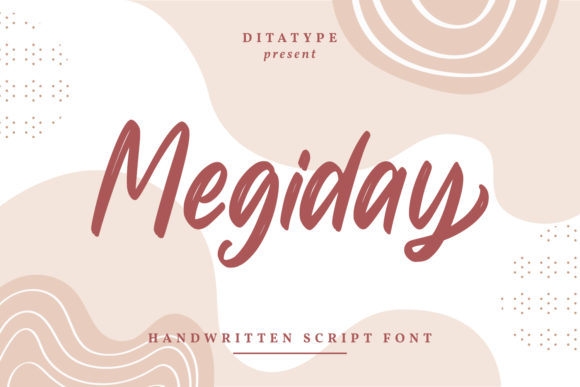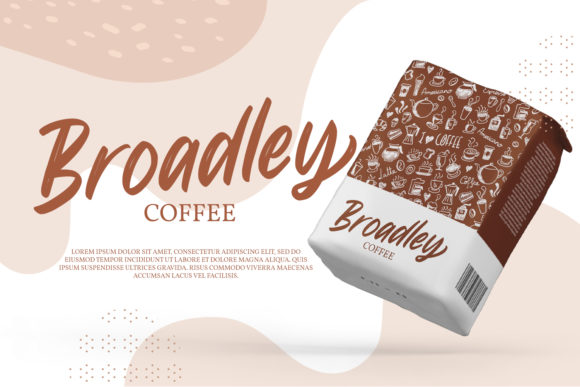
About Megiday Font
Megiday is a sweet and friendly handwritten font. Its natural and unique style makes it incredibly fitting to a large pool of designs. The only limit is your imagination!